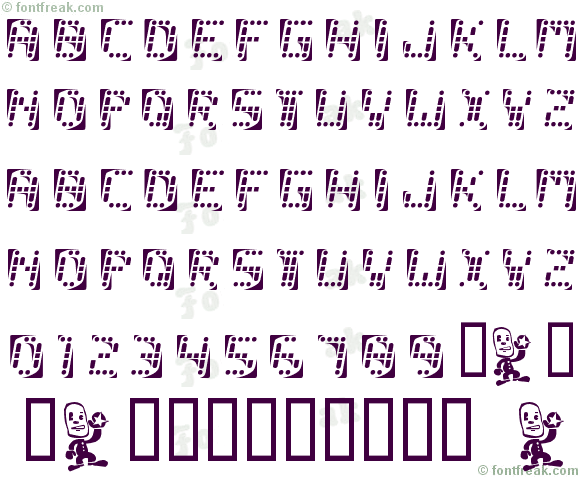
malfunction
About Malfunction
The Malfunction font, created by Thomas Rogerstam in 1999, is an eye-catching display typeface that falls into the decorative category. This unique font captures attention with its distinct visual style characterized by irregular, broken lines and an avant-garde aesthetic. The stroke weight varies throughout the characters, providing a dynamic contrast that enhances its playful yet edgy appeal. The spacing between letters is tight, which contributes to its bold presence while maintaining legibility.
This font is particularly suited for a variety of creative applications. It works exceptionally well for movie posters, where its striking design can evoke a sense of drama and intrigue. Additionally, it is a great choice for album covers, especially in genres like punk or alternative music, where an unconventional look is celebrated. For graphic designers working on promotional materials, Malfunction can bring a unique flair to flyers and advertisements, making them stand out in a crowded market. Small business owners looking to convey a modern yet quirky brand identity can also find value in using this font for logos and packaging. Furthermore, content creators who want to add a touch of personality to their digital projects will appreciate the font’s distinctive look.
The target audience for the Malfunction font includes graphic designers, small business owners, and content creators seeking to infuse their work with a sense of individuality and creativity. Its freeware license makes it accessible to anyone looking to enhance their designs without the burden of licensing fees. The Malfunction font free download allows users to explore its unique characteristics and integrate them into various projects. Overall, Malfunction stands out due to its innovative design and versatility, making it a must-have for anyone looking to break the mold in typography.